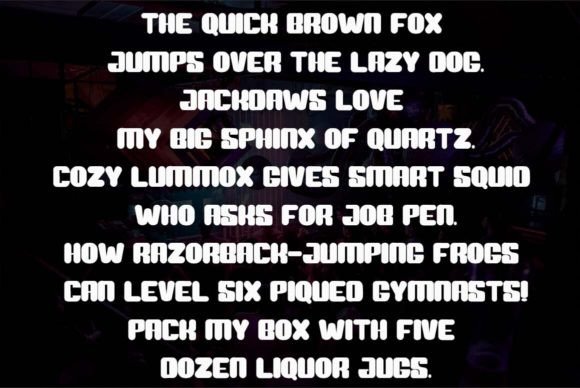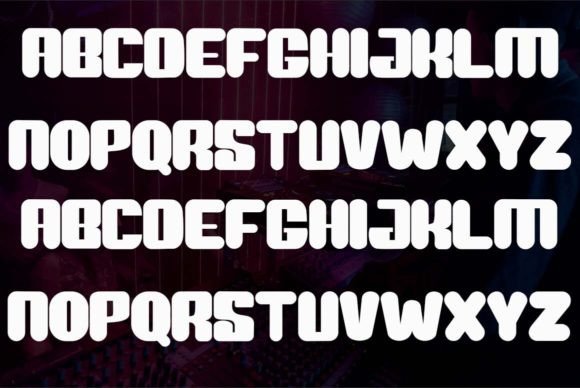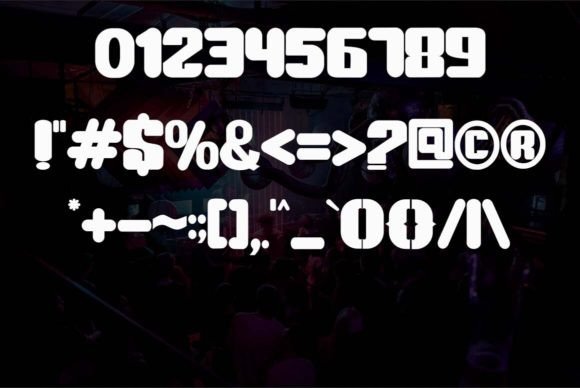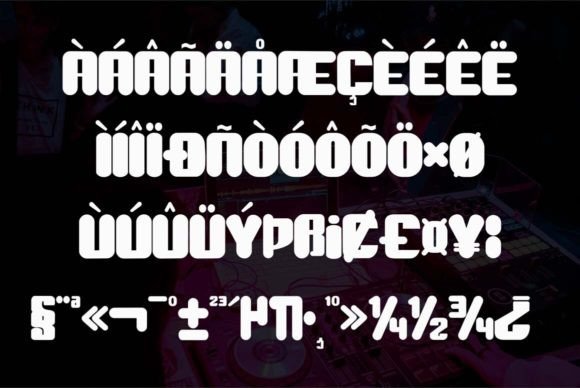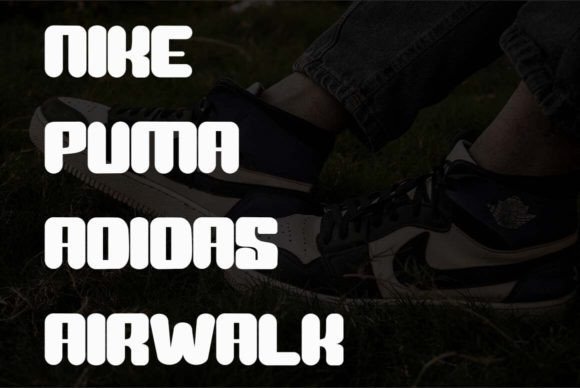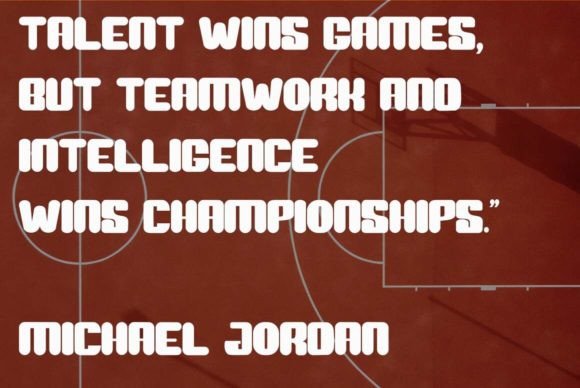
Introduction to Muller Font
Have you ever found yourself in the midst of a creative project, frantically searching for the perfect font to give your design that extra oomph? It’s a feeling we’re all too familiar with – the thrill of bringing a concept to life, only to be held back by a lackluster font. But what if I told you there’s a game-changing solution waiting to elevate your next design project?
Enter the Muller Font, a sleek and modern display font designed to make a statement. Its clean lines, elegant curves, and transparent background make it the ultimate design resource for any creative project. Whether you’re a seasoned designer or just starting out, the Muller Font is an invaluable asset that will take your work to the next level.
Key Features of Muller Font
- High-quality design resource suitable for creative projects, offering a clean and modern look.
- Features a transparent background, providing flexibility for designers to customize and combine with other design elements.
- Designed to be scalable, with a resolution of 300 DPI, ensuring crisp and clear display in various sizes.
- Comes in a single font weight, making it easy to use and maintain consistency across different design elements.
Honest Review: Muller Font
I recently had the chance to work with the Muller Font for a creative project, and I must say it’s been a game-changer. As a designer, I’m always on the lookout for high-quality design resources that can elevate my work, and Muller Font definitely delivers.
Here are some of the things that work well with the Muller Font:
- ✨ High-quality typography: The font is crisp, clear, and well-designed, making it perfect for any creative project.
- ✨ Versatility: The Muller Font is available in multiple weights and styles, allowing me to experiment with different looks and feels.
Of course, no font is perfect, and the Muller Font has its limitations:
- ⚠️ Limited customization options: While the font is highly versatile, there are limited options for customizing the font to fit specific design needs.
- ⚠️ Transparent background not always supported: I’ve had some issues with the font not displaying correctly on transparent backgrounds, which can be a bit frustrating.
Overall, I’m really impressed with the Muller Font and would highly recommend it to fellow designers. Its high-quality design and versatility make it a valuable addition to any design toolkit, and the free download option is a definite bonus.
How to Use Muller Font
The Muller Font is a versatile and high-quality design resource that can elevate any creative project. With its unique style and transparent background, it’s perfect for designers looking for a fresh and modern look.
Tips for Getting the Most Out of the Muller Font
To get the most out of the Muller Font, use it in conjunction with other design elements such as images, shapes, and colors. Experiment with different font sizes, colors, and styles to create a unique and eye-catching design.
The Muller Font is perfect for a variety of design projects, including:
- Business cards and stationery